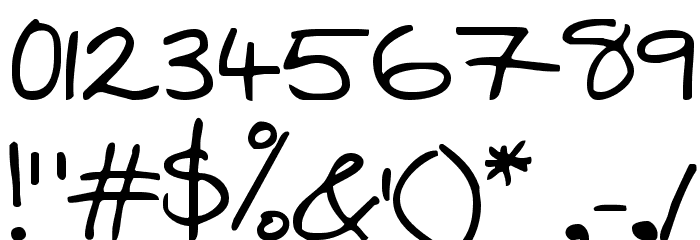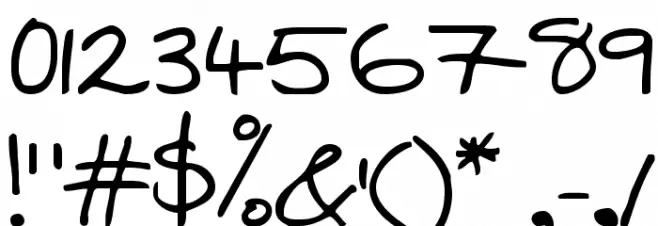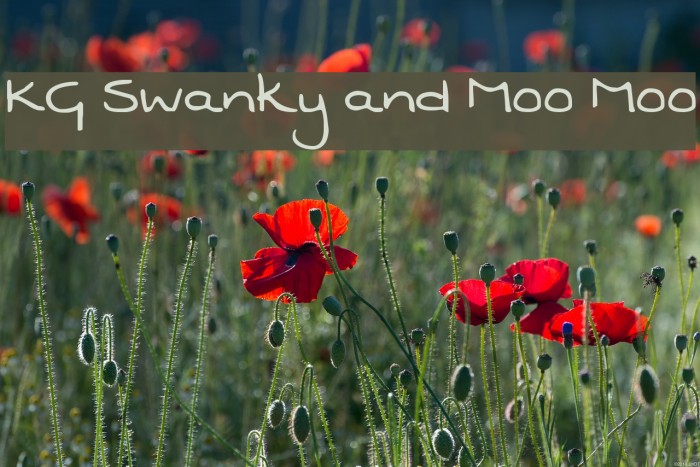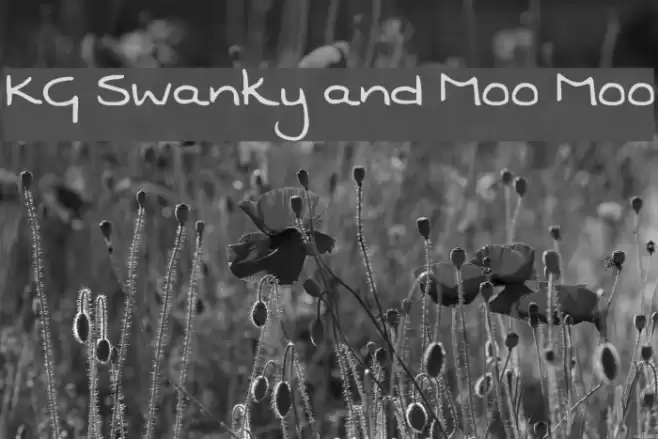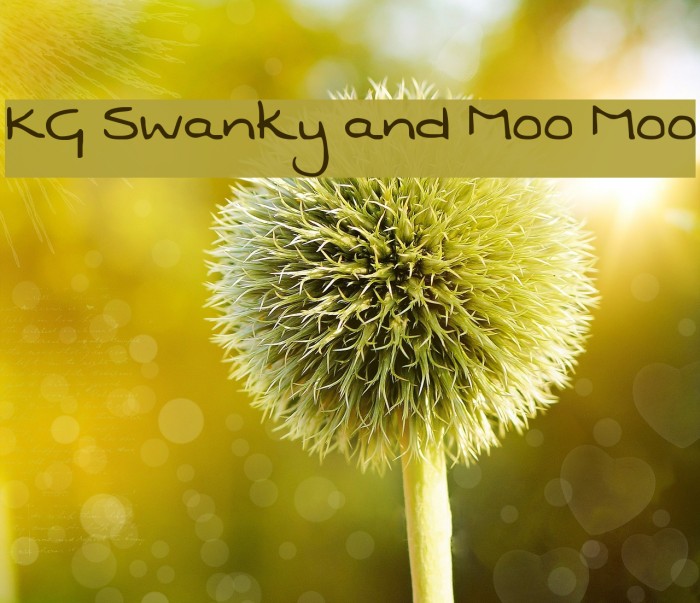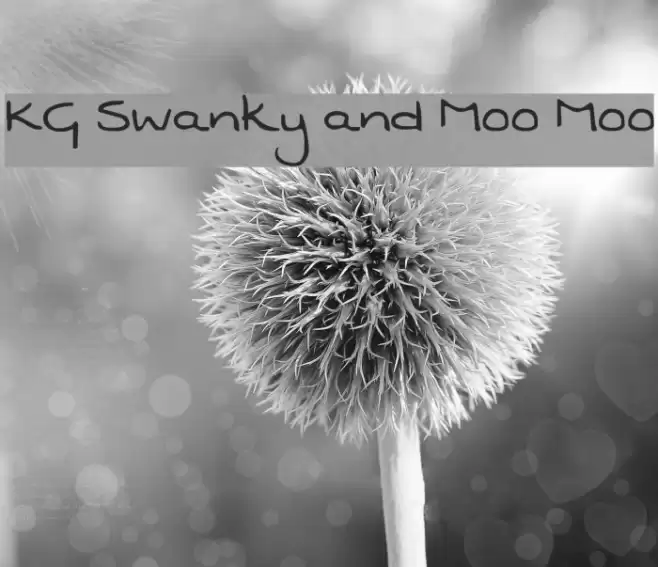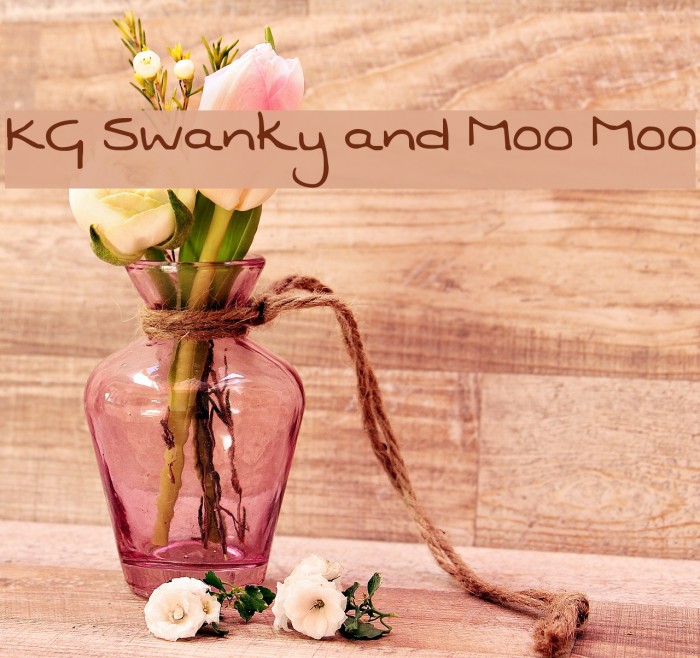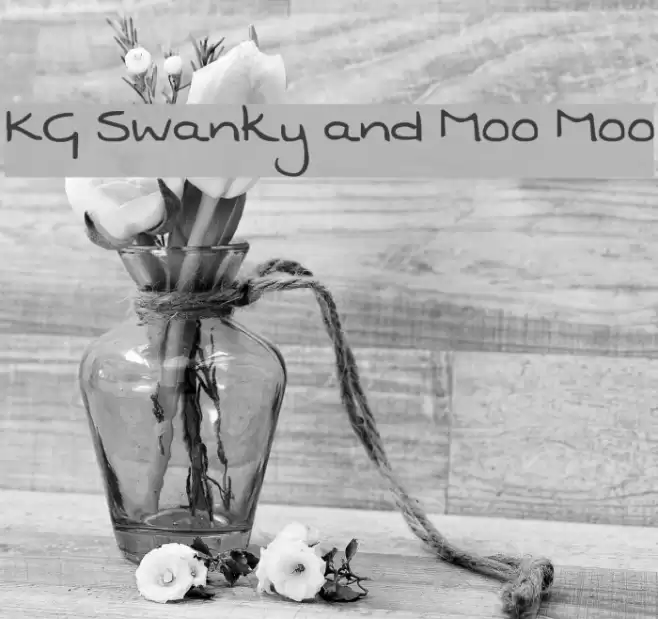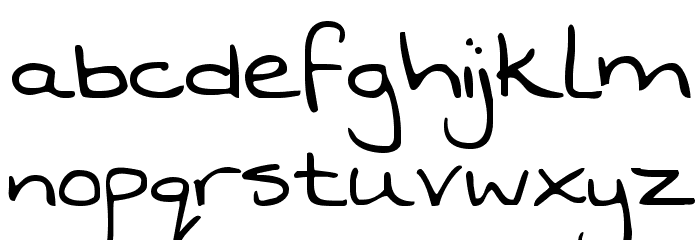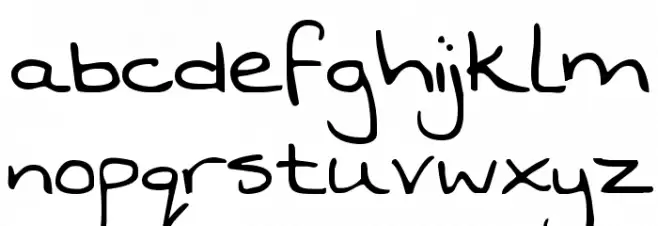
KG Swanky and Moo Moo Font
| Gesamtstil | Casual and playful |
| Anwendungsfall | Headlines, Logos, Informal text |
| Vorgeschlagene Projekte | Ideal for children's books, greeting cards, playful branding, and informal invitations. |